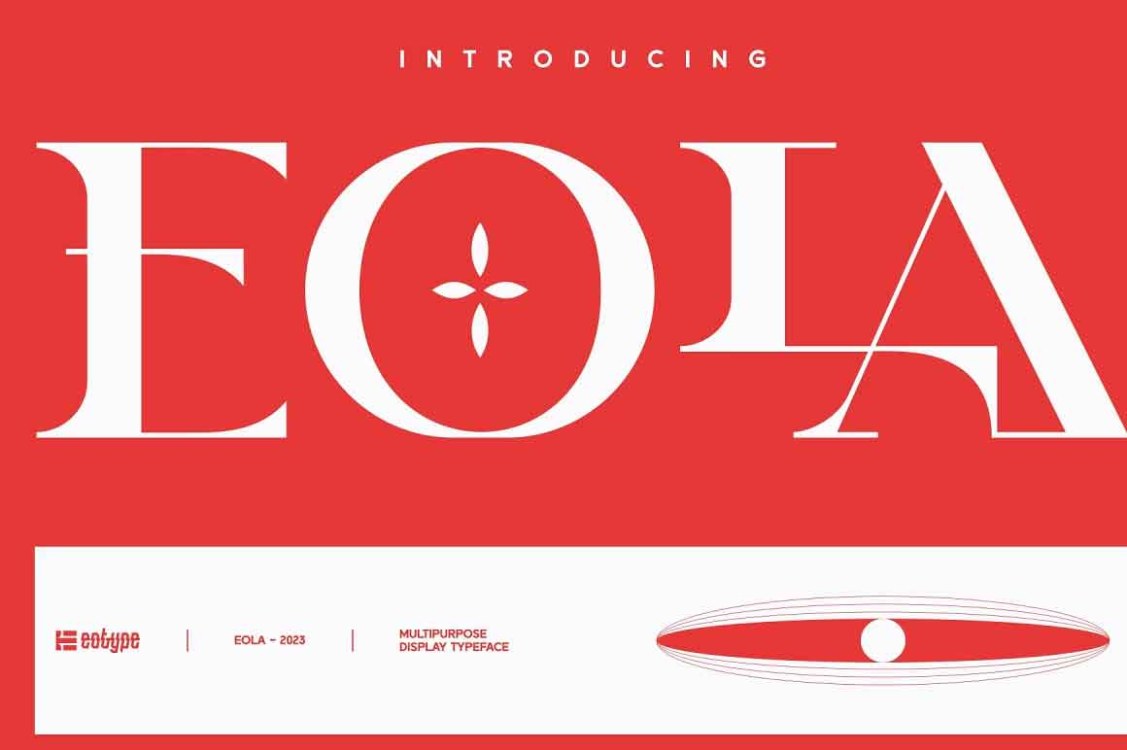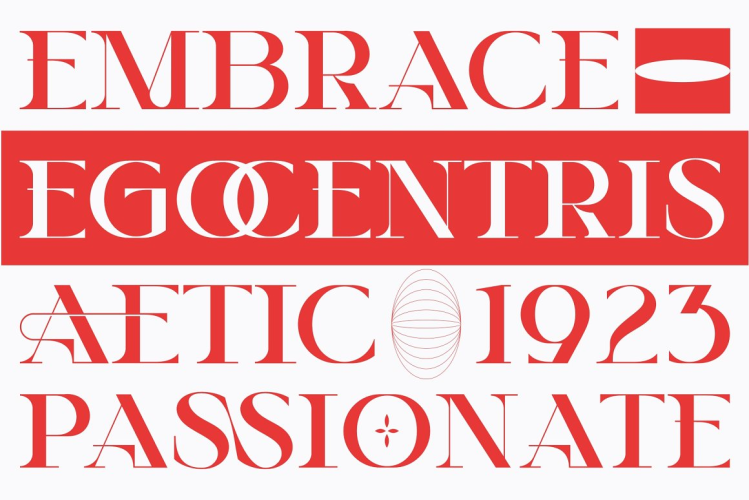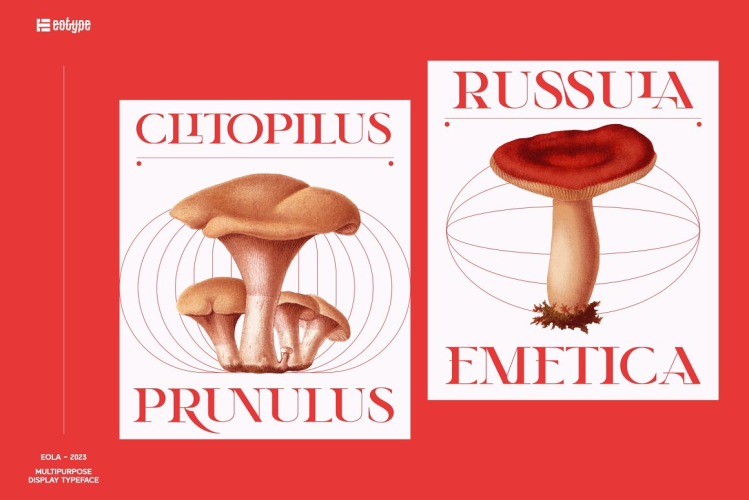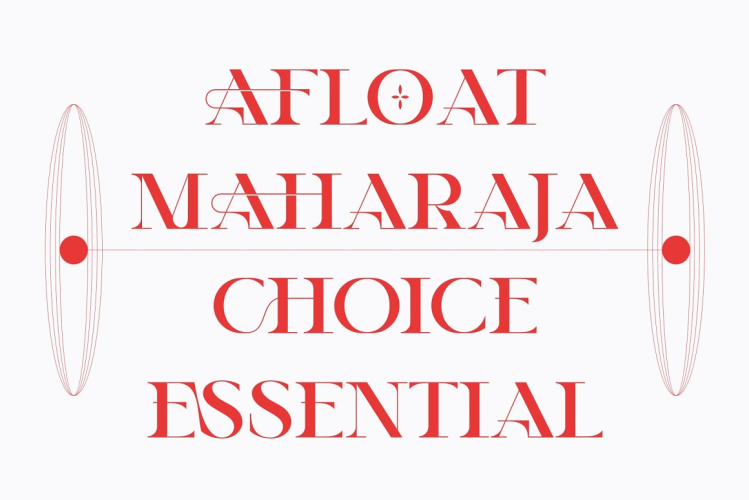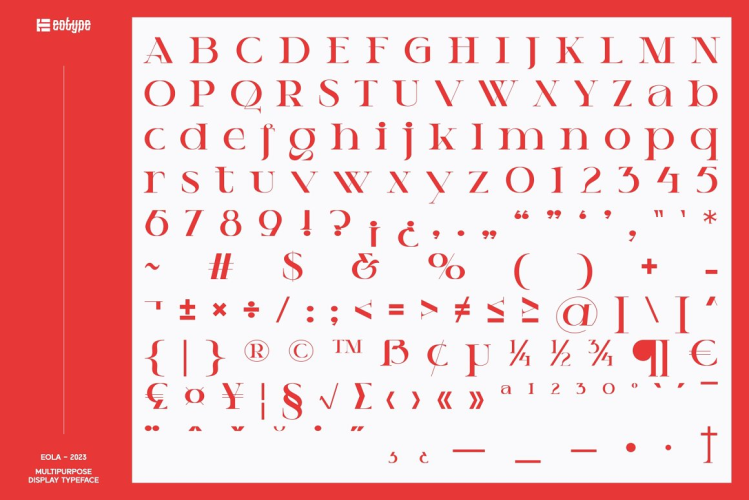
Eola Font
Eola is a stylish serif font characterized by contrast between thick and thin lines. This font has a serif style that features a modern-classic blend design. This font has alternate and ligature features that give you access to a unique collection of letters.
Eola Font is a Serif Fonts font that brings a professional and versatile look to your projects. Eola is a stylish serif font characterized by contrast between thick and thin lines.